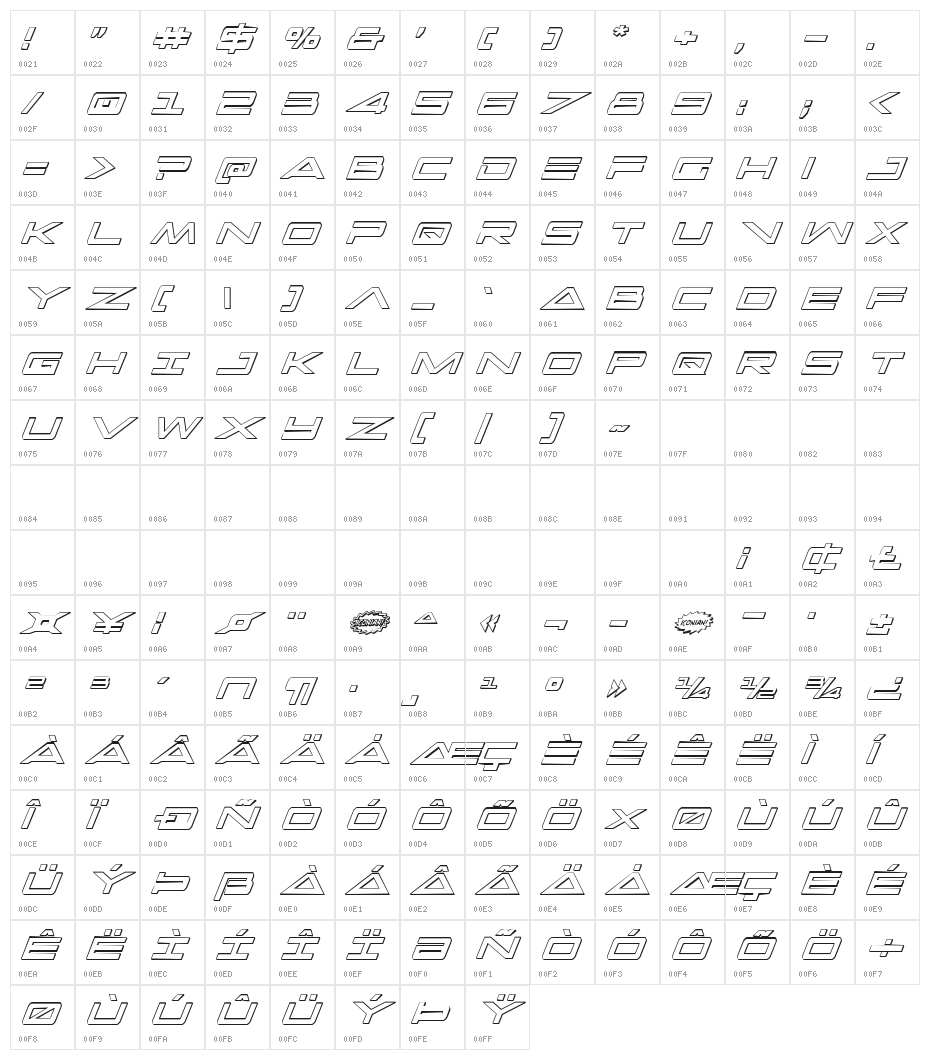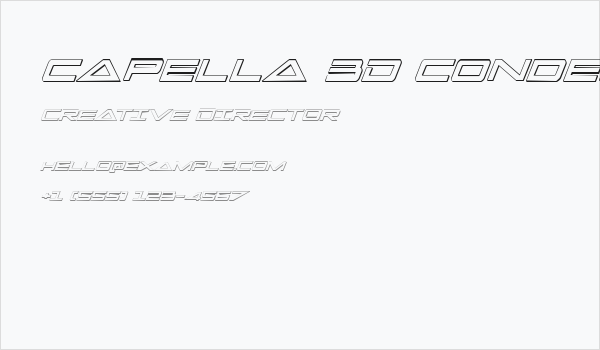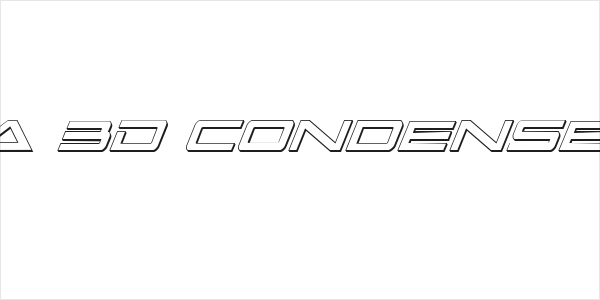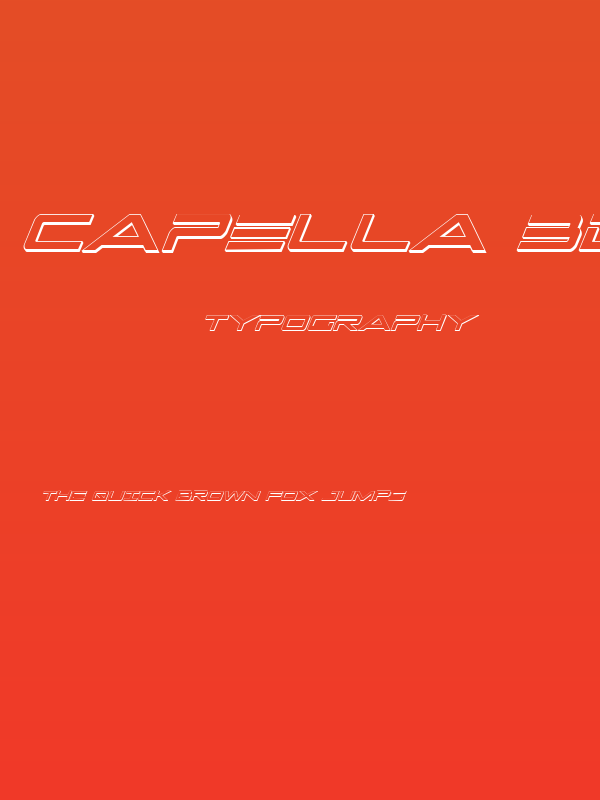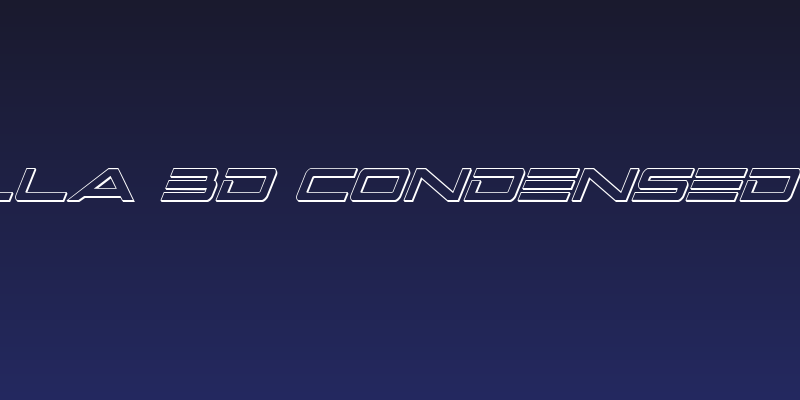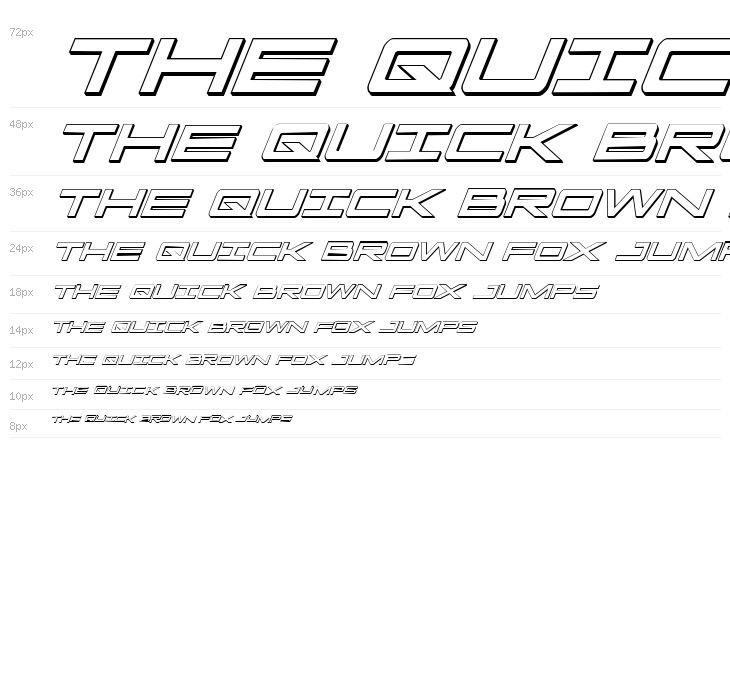
Capella 3D Condensed Italic Font
Capella 3D Condensed Italic Description
This font features a futuristic, three-dimensional design with a condensed and italicized style. The characters are outlined, giving them a hollow appearance that enhances the 3D effect. The angular and geometric shapes of the letters contribute to a modern and dynamic look, making it stand out in any design. The font maintains a consistent stroke width, providing a uniform appearance across all characters. Its unique style is suitable for projects that require a bold and innovative aesthetic.
| Proposed Projects | Ideal for sci-fi themed designs, technology branding, video game titles, and futuristic posters. |